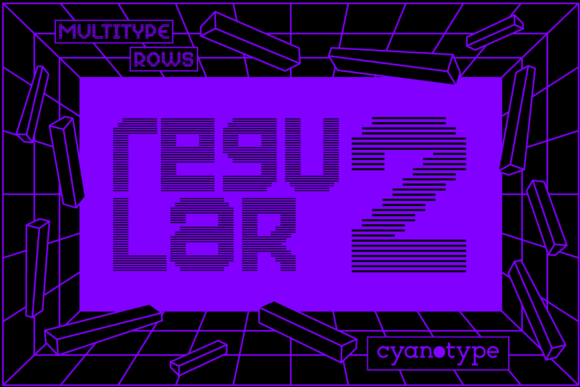
Get ready to captivate your audience with MultiType Rows Regular 2, the pixelated display font that oozes uniqueness! With its cool pixel art-inspired design, this font is sure to leave a lasting impression. Unleash your creativity and add a distorted, trendy touch to your projects, making them stand out from the ordinary.
MultiType Rows Regular 2 opens up a world of possibilities for your designs. Whether you're crafting eye-catching logos, quirky posters, or vibrant social media graphics, this font has got you covered. Its distinct pixelated style adds a touch of playfulness and innovation, making your designs unforgettable.
Jump into the future of typography with MultiType Rows Regular 2. Experience the ease of use with PUA encoding, allowing you to effortlessly access all glyphs and swashes. Say goodbye to limitations and embrace endless creative possibilities. Don't miss out on this extraordinary font that's sure to transform your designs.
So, why settle for ordinary when you can embrace the extraordinary? Dive into the world of pixel art typography with MultiType Rows Regular 2 and let your creativity soar. Get your hands on this remarkable font today and witness the transformation in your designs!